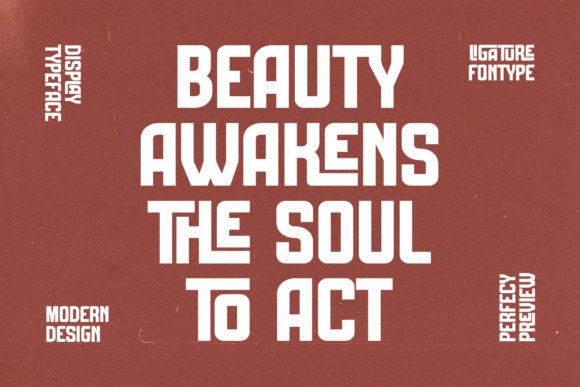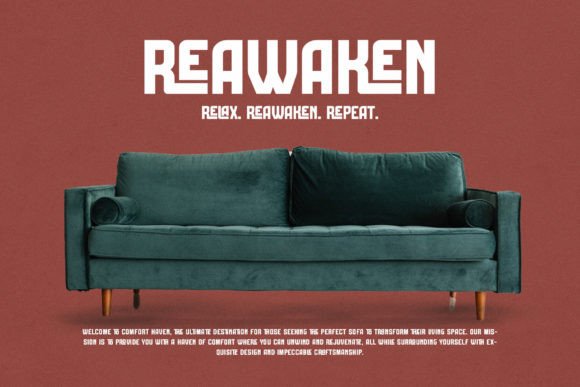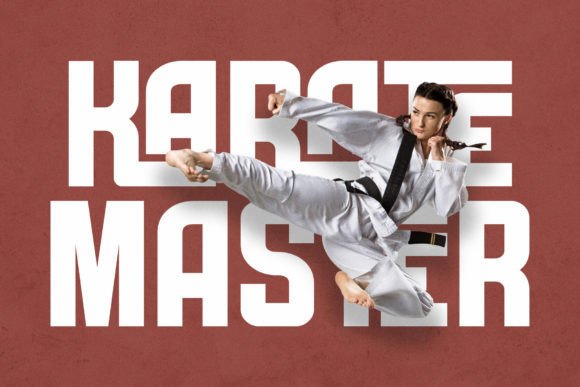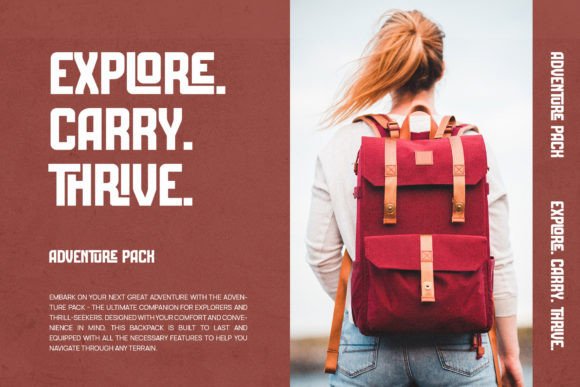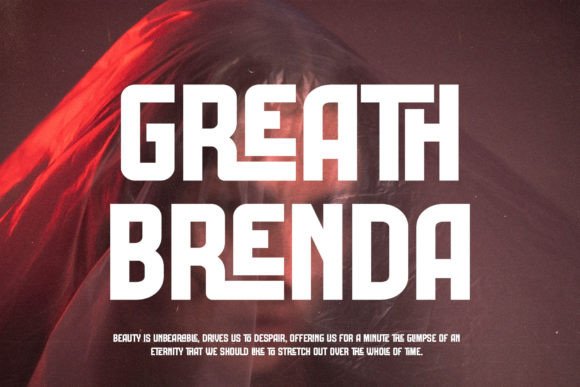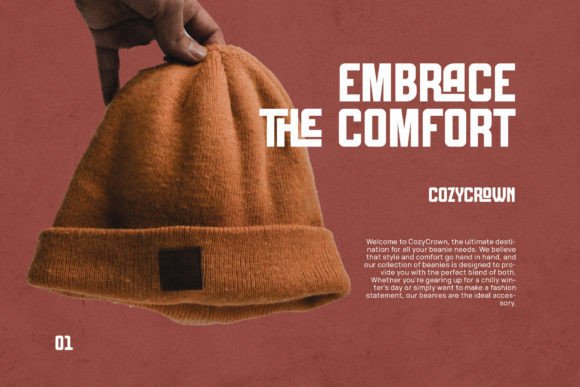
Discovering the Rhythm of Creativity
Have you ever sat in front of a blank canvas, staring at a sea of possibilities, waiting for the perfect idea to strike? For designers, this moment of creative clarity is the spark that ignites a project’s potential. It’s the moment when everything comes together – vision, inspiration, and execution. And, for those who crave a unique visual identity, the Ghrathe Font is about to become their trusted companion.
The Ghrathe Font is a masterfully crafted typeface that embodies balance and symmetry. With its intricate mix of inspiration, it’s the perfect blend of elegance and minimalism. Whether you’re working on a brochure, video, or advertising campaign, this font is sure to elevate your design and make it stand out. Its versatility and precision make it an invaluable asset for designers, allowing them to create stunning visual identities that capture attention and leave a lasting impression.
Ghrathe Font Key Features
- Font Family: Ghrathe is a sans-serif font family.
- Unique Characteristics: Ghrathe features a clean and modern design, with a focus on legibility and readability, making it ideal for digital interfaces and publications.
- Font Styles: Includes regular, bold, italic, and bold-italic font styles.
Ghrathe Font Review
I recently had the chance to work with the Ghrathe Font, and I must say it’s an interesting addition to any design project. ✨ One of the things that I liked about this font is its unique, exotic feel. It’s perfect for projects that require a touch of cultural or mystical flair.
The Ghrathe Font is well-suited for both digital and print use, with a wide range of weights and styles available. This allows designers to create visually appealing and consistent typography across different mediums.
- ✨ Unique and exotic feel
- ✨ Wide range of weights and styles
- ✨ Suitable for both digital and print use
- ⚠️ Some characters may be difficult to read, especially in small sizes
- ⚠️ Limited language support
- ⚠️ May not be suitable for projects requiring a clean, modern look
Overall, the Ghrathe Font is a great choice for designers looking to add some personality to their projects. While it may have some limitations, its unique feel and wide range of styles make it a valuable addition to any design library.
Tips for Getting the Most Out of Ghrathe Font
Here are some tips to help you get the most out of Ghrathe Font:
- Use it for creative projects that require a unique and exotic feel.
- Pair it with bold, colorful graphics to create a striking visual effect.
- Experiment with different font sizes and styles to add depth and interest to your design.
Some common use cases for Ghrathe Font include:
Alternatives to “Ghrathe Font” for Designers1. Playfair Display
Playfair Display is an elegant and luxurious serif font, ideal for use in high-end branding, luxury goods, and elegant editorial designs. It features a classic, sophisticated feel and works well in large sizes. Compared to Ghrathe Font, Playfair Display has a more refined and traditional look, making it suitable for formal and high-end projects.
Merriweather is a classic serif font with a strong, traditional feel. It is well-suited for use in body text, particularly in academic and technical writing, as well as in branding and packaging designs. In comparison to Ghrathe Font, Merriweather has a more conservative and timeless appearance, making it suitable for projects where a traditional look is desired.
Montserrat is a modern sans-serif font with a strong, urban feel. It is ideal for use in digital interfaces, signage, and editorial designs, particularly in urban and edgy contexts. Compared to Ghrathe Font, Montserrat has a more geometric and modern appearance, making it suitable for projects where a bold and contemporary look is desired.
4. Georgia
Georgia is a classic serif font designed for digital use. It features a clear, readable design and is well-suited for use in body text, particularly in online content and digital interfaces. In comparison to Ghrathe Font, Georgia has a more conservative and traditional appearance, making it suitable for projects where a classic and readable look is desired.